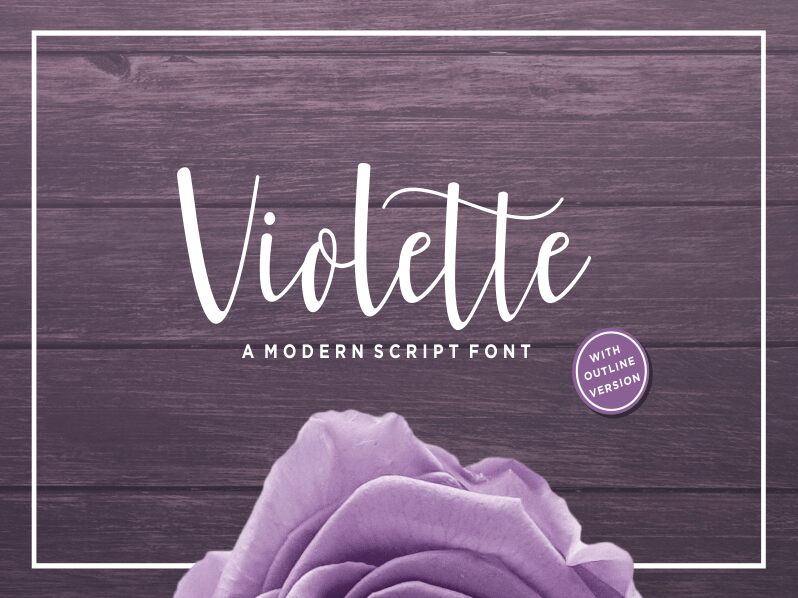
Violette by Sronstudio is a free calligraphic script with tall, looping letters and pronounced changes in stroke width. Long entry and exit strokes sweep through the setting, lending the line a continuous, ribbon-like motion. The narrow forms rise and dip dramatically, with oversized loops providing much of the design's elegance.
Its fluid silhouette can give wedding invitations a formal, personal note, yet it also has enough fashion polish for cosmetics packaging and boutique branding. On album covers and event posters, the recurring loops can echo ribbons, thread, or fine line illustration, making the lettering part of the decorative motif rather than a separate caption.